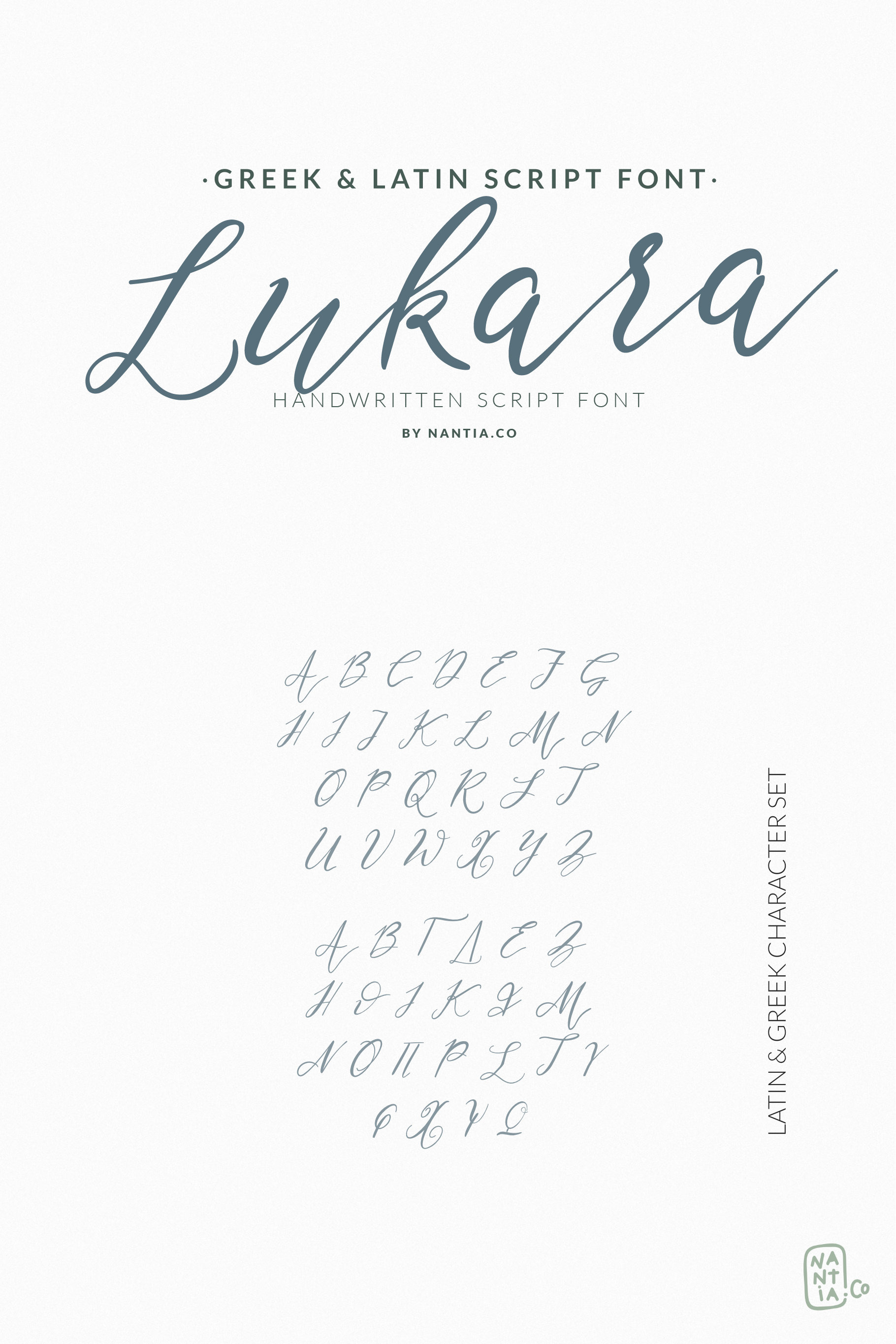
Greek Font Lukara Pro Script
Lukara Pro Greek Script Font
Lukara Pro Greek Script Font is a script decorative font with which you can achieve a handwritten-type lettering feeling. This font has a really nice flow so you use it in a large text if you want to give them a touch of personality. It can be used on social media content, for branding, wedding invitations or packaging.